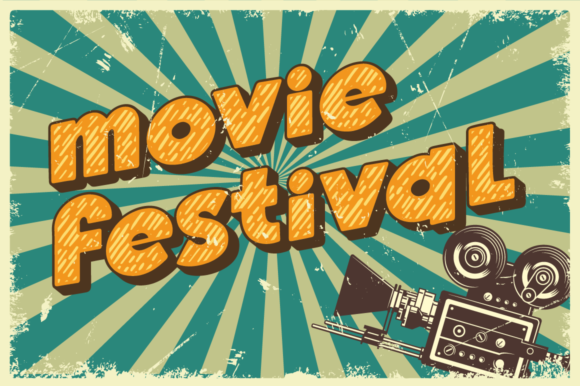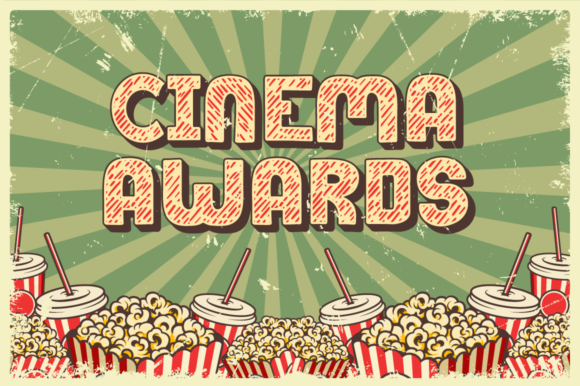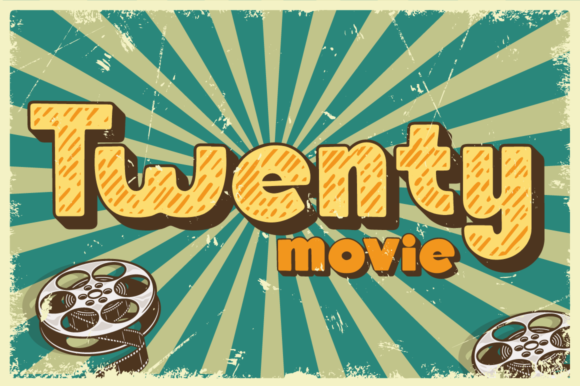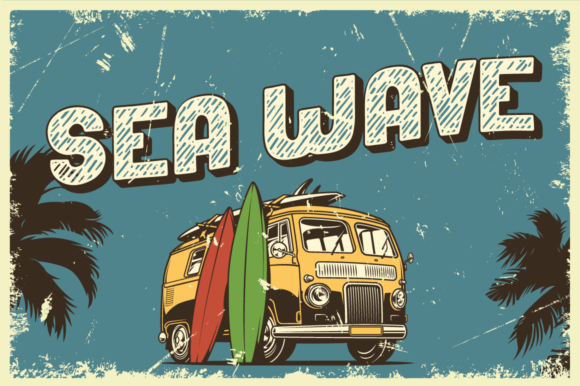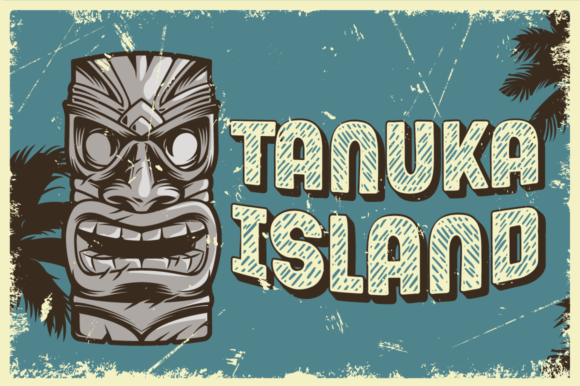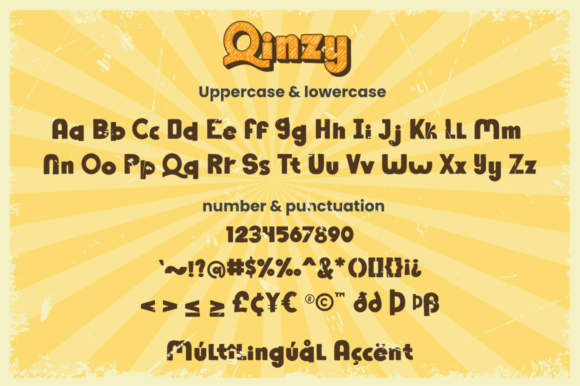
Introduction to Qinzy Font
Remember that moment when a single design element brings your entire project to life? For many creatives, it’s those little details that make all the difference. Whether you’re a seasoned designer or a budding artist, you know that finding the perfect font can elevate your work to new heights. That’s exactly what the Qinzy Font promises to deliver – a vintage styled display font that’s sure to become a true favorite.
As a valuable design resource, Qinzy Font offers a high-quality solution for creatives seeking to add a touch of elegance to their projects. With its masterful design, this font is perfect for anyone looking to make a statement. Plus, with a transparent background, you can easily incorporate it into your designs without any fuss. And the best part? You can download it for free, making it an excellent addition to your design toolkit.
Key Features of Qinzy Font
- High-quality design resource for creative projects, suitable for a wide range of applications.
- Unique and modern design, perfect for adding a touch of elegance to your design.
- Supports various font sizes, from small to large, making it ideal for titles and headings.
- Resolution-independent design, ensuring crisp and clear display on high-resolution screens.
- Perfect for use in graphic design, digital art, and other creative projects that require a high-quality font.
Honest Review: Qinzy Font
As a designer, I’m always on the lookout for high-quality design resources to elevate my creative projects. I recently came across the Qinzy Font, and I was excited to give it a try.
First impressions were great – the Qinzy Font has a unique and modern feel that I think would work well for a variety of design applications. The transparent background is a nice touch, allowing for seamless integration with other design elements.
- Unique and modern design aesthetic
- Limited font weights and styles (only 2 available)
- Not suitable for complex or large-scale design projects
- Not as versatile as some other popular fonts
Overall, I think the Qinzy Font is a solid choice for designers looking for a high-quality, modern font for their creative projects. While it may have some limitations, its unique design aesthetic and transparent background make it a valuable design resource.
Qinzy Font is a great choice for a wide range of creative projects, including logos, business cards, and social media graphics. Its high-quality design and transparent background make it perfect for use in marketing materials, presentations, and documents.